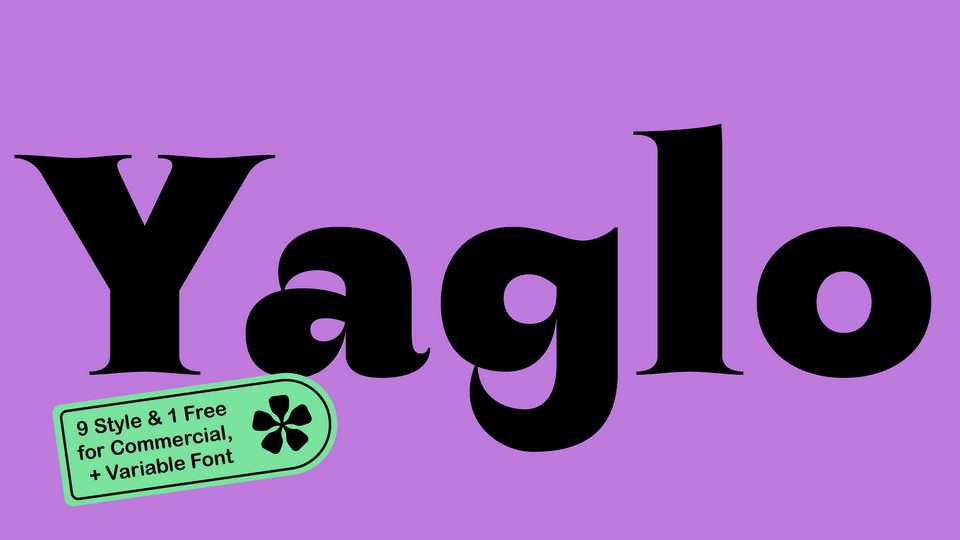
ZT Yaglo Font › Fontesk
Download ZT Yaglo font, a dynamic and expressive display typeface that has a fishing rod-like concept, with a consistent rhythmic curve that gets sharper at the ends. ZT Yaglo mixes a simple sans style for extra bold serif energy with the feel of calligraphic shapes.